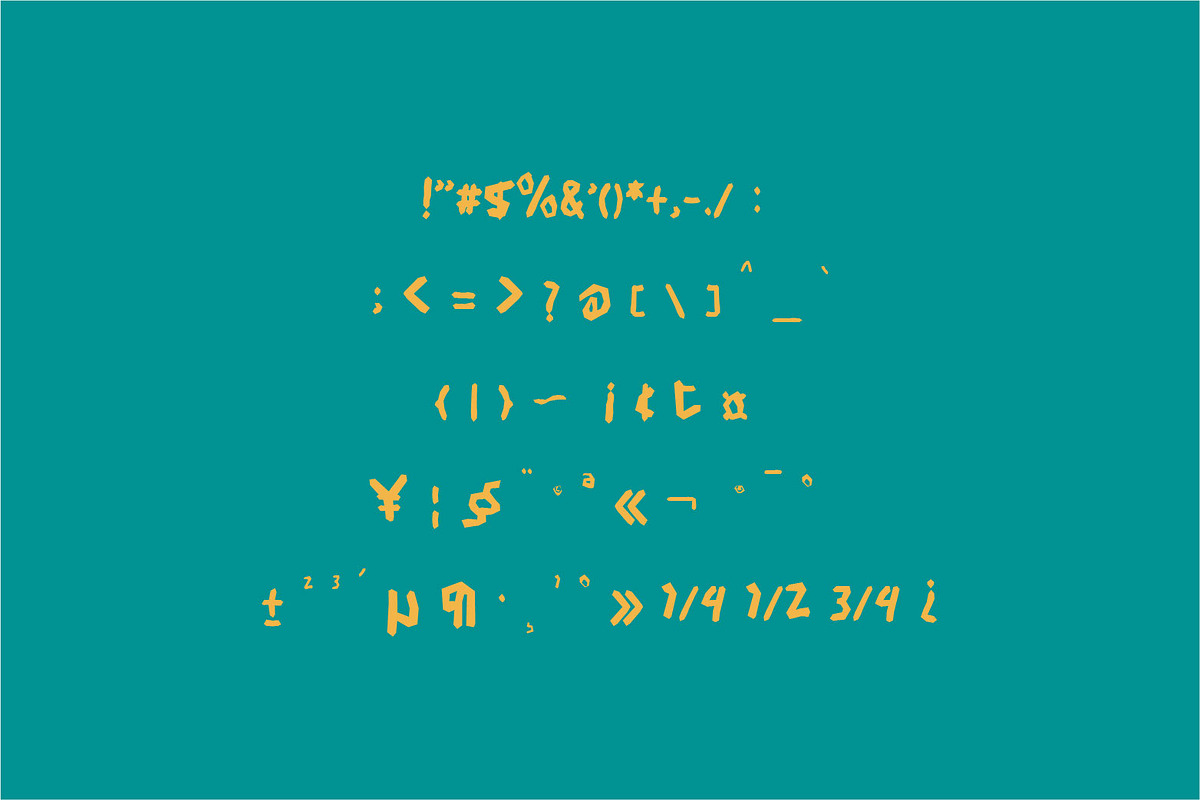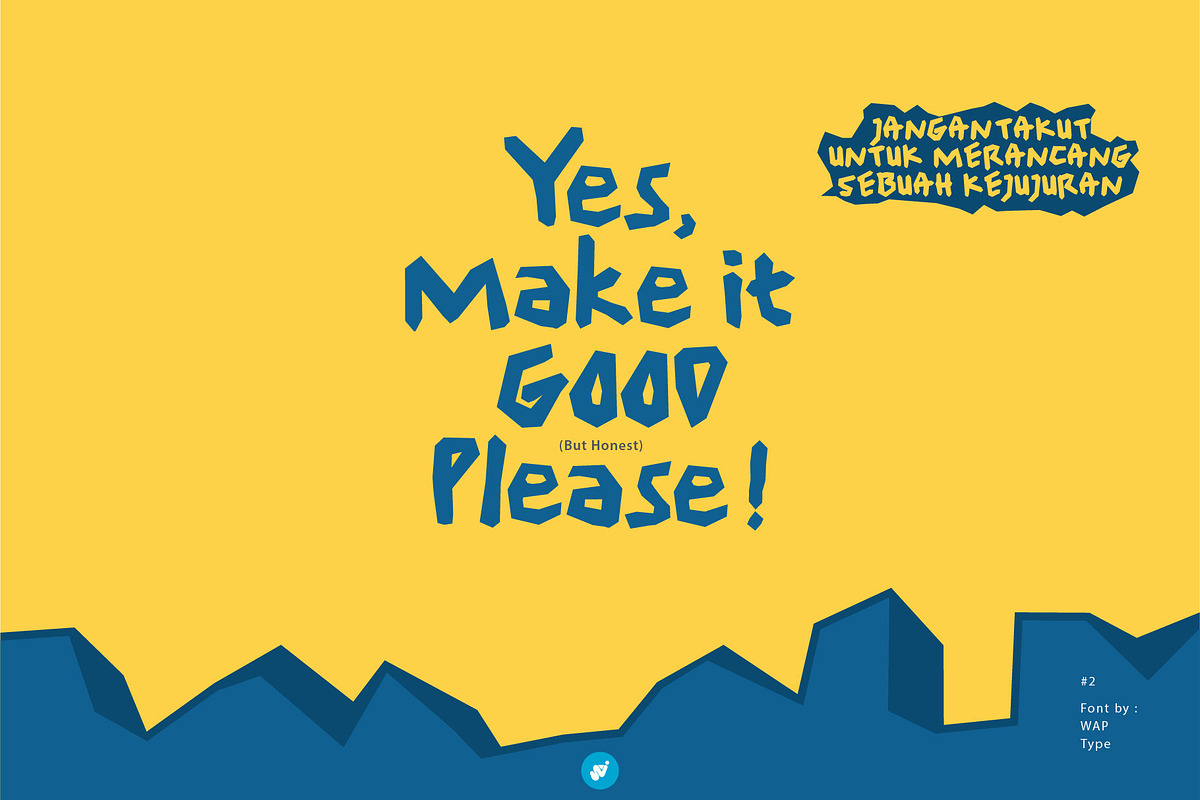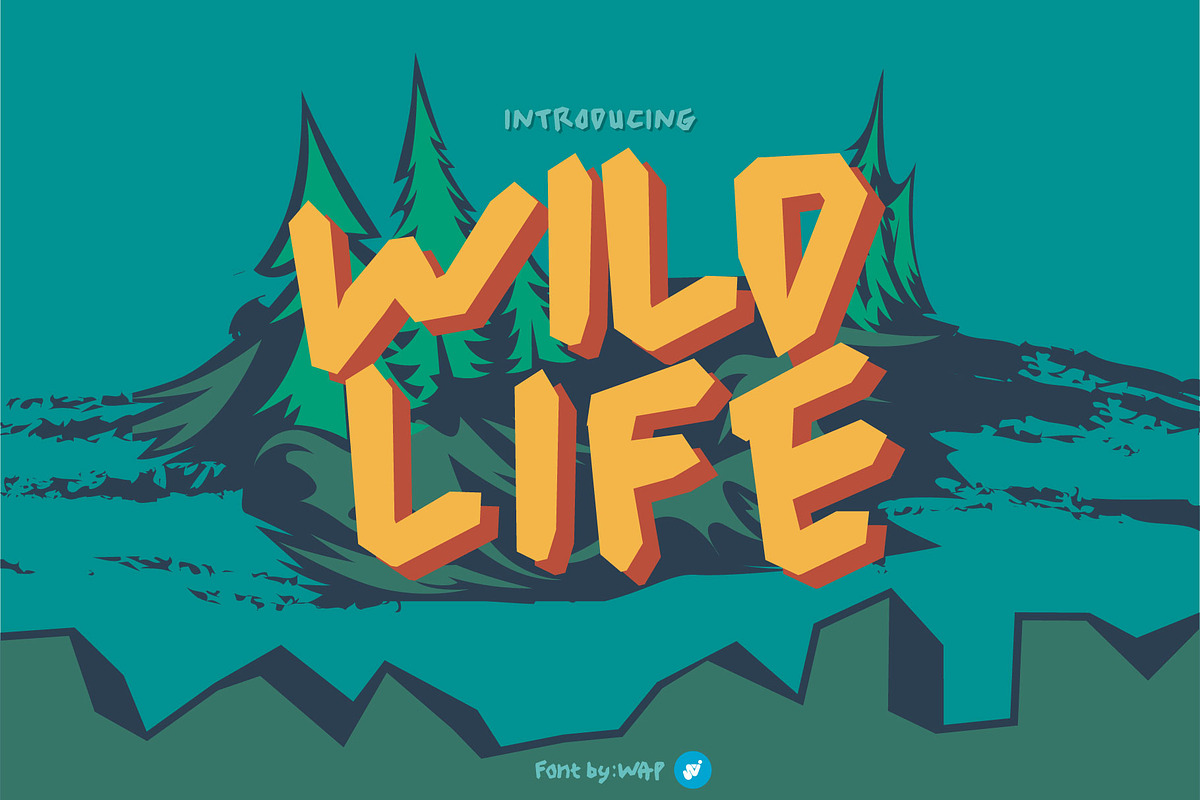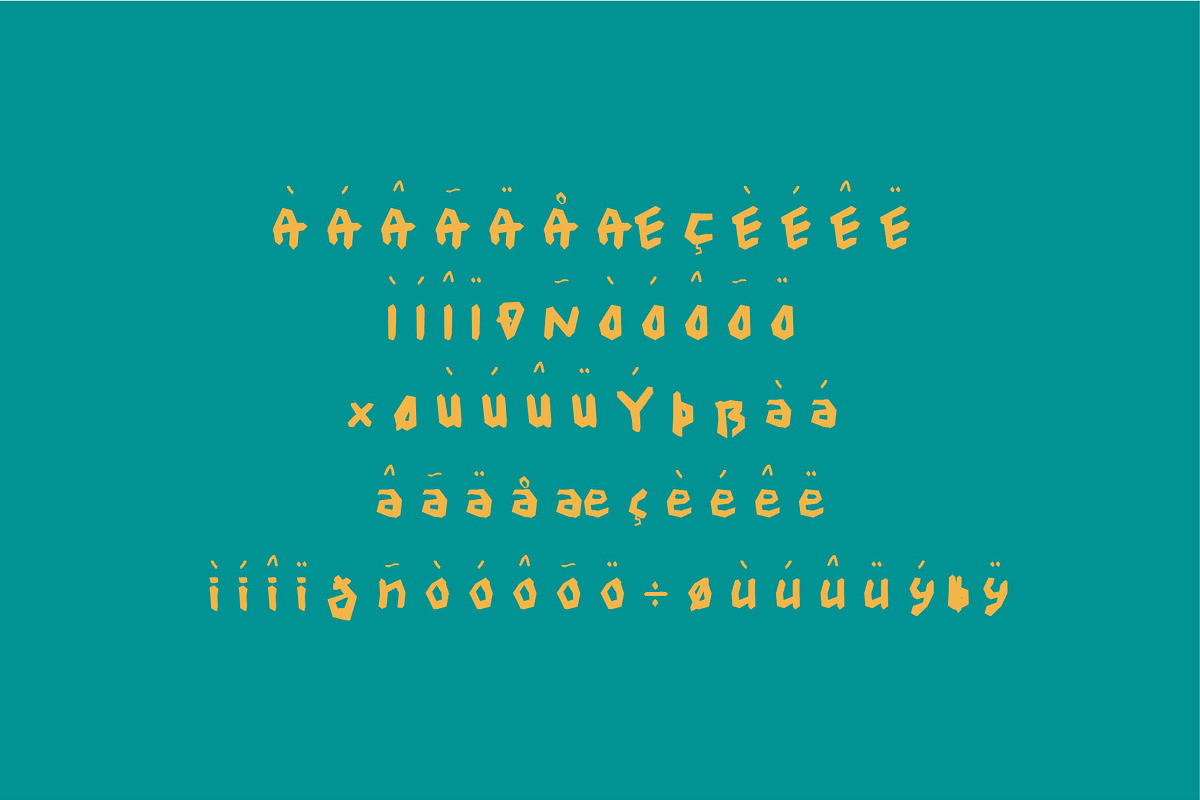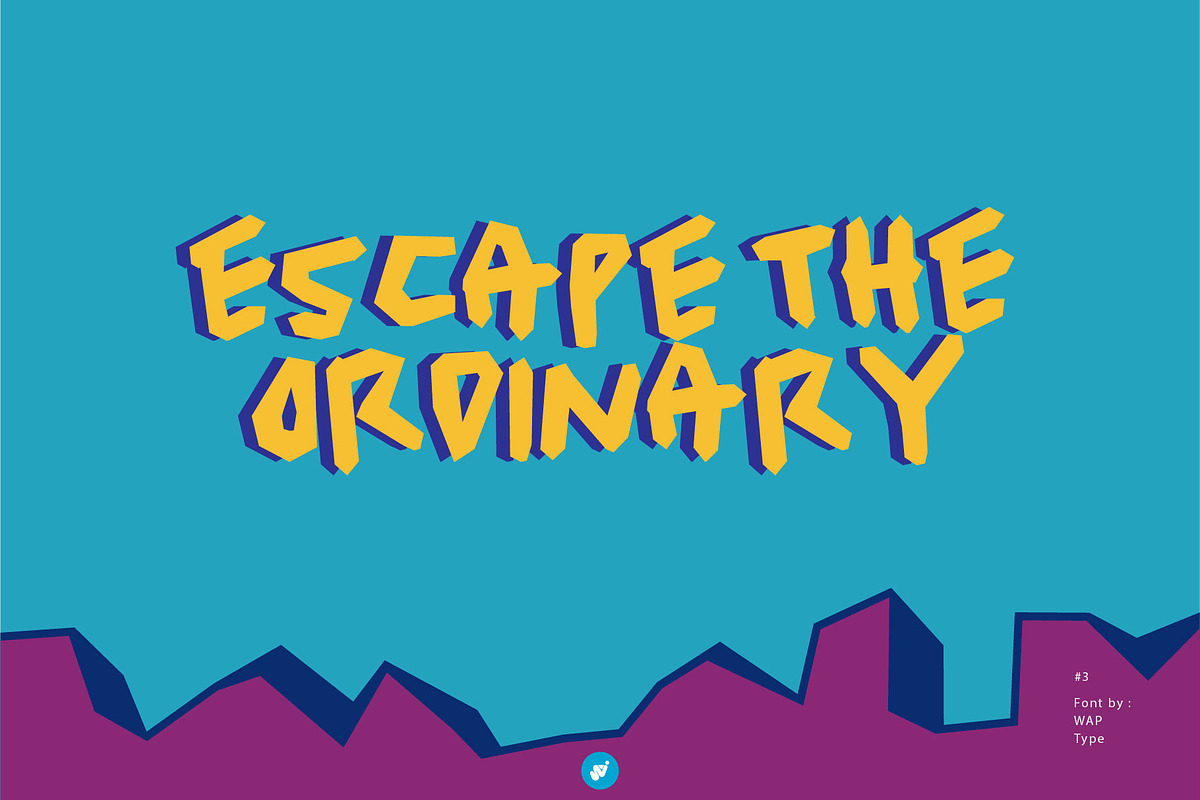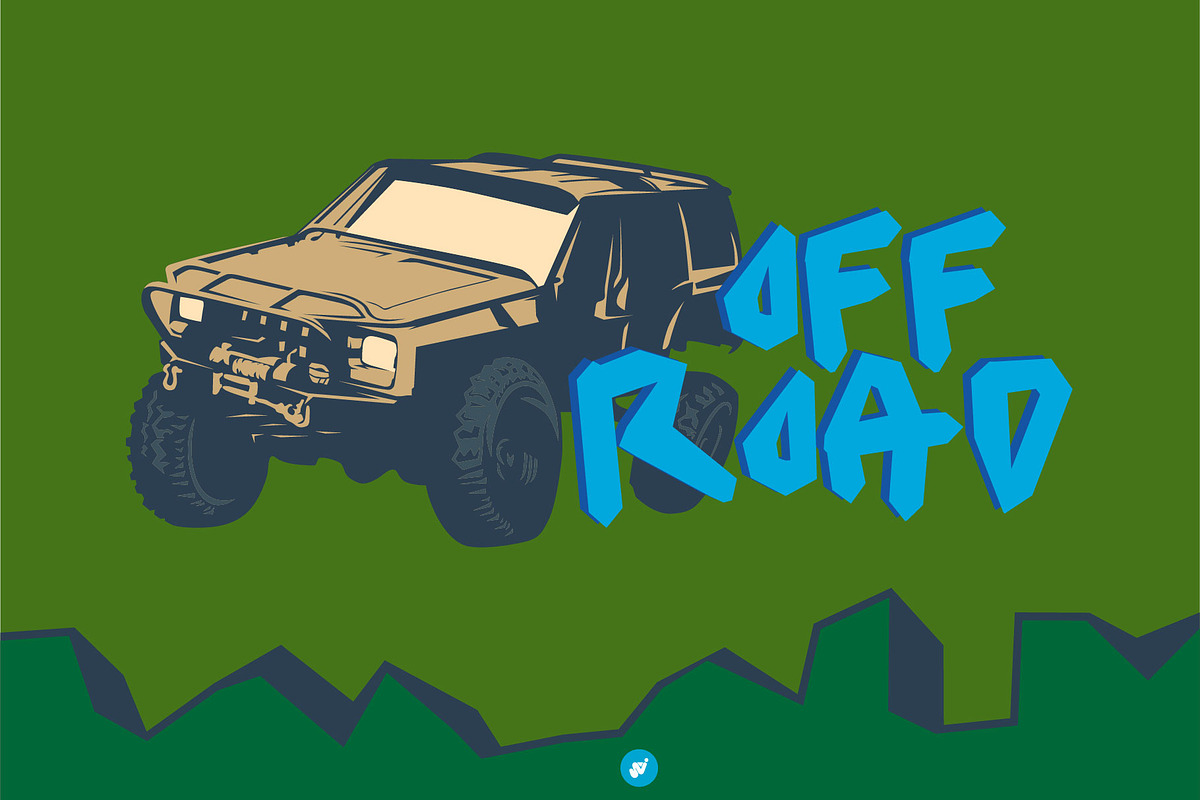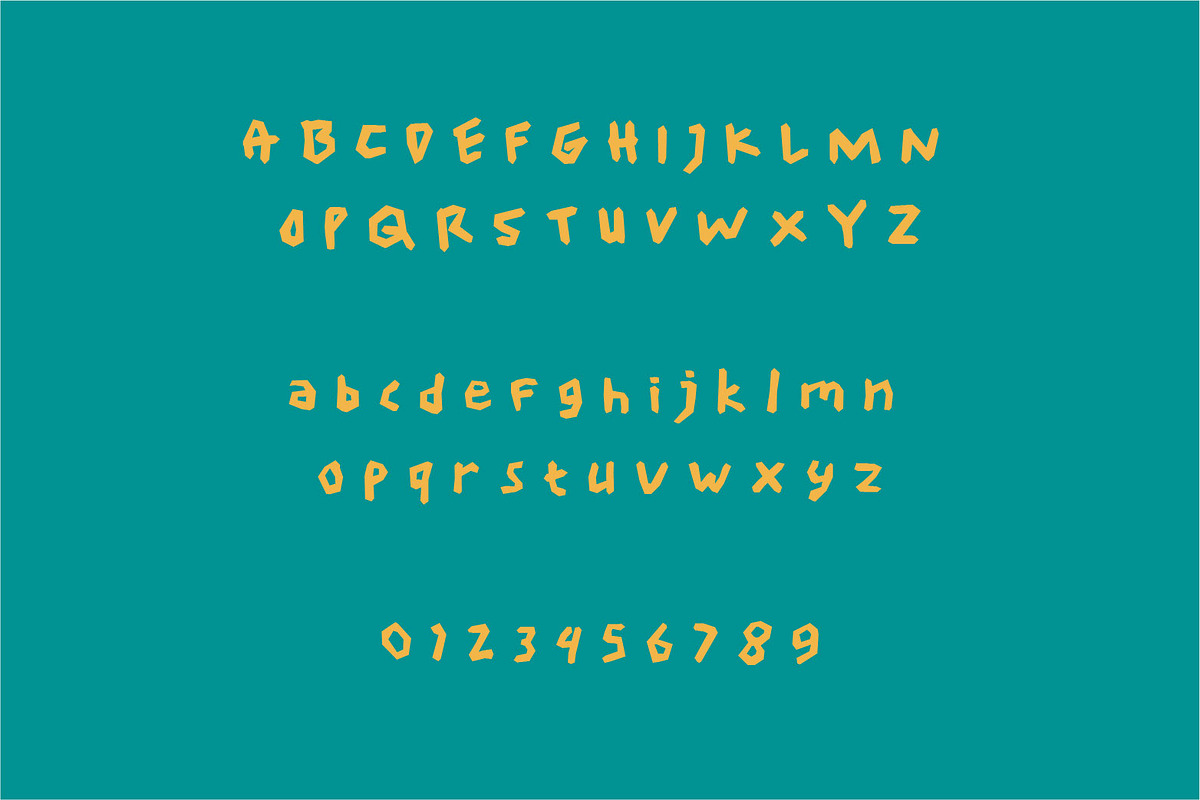
Wild Life
Wild Life is a unique modern and beautiful font with an incredibly adventurous feel. Use this gorgeous and unique display font to bring any DIY project to life!